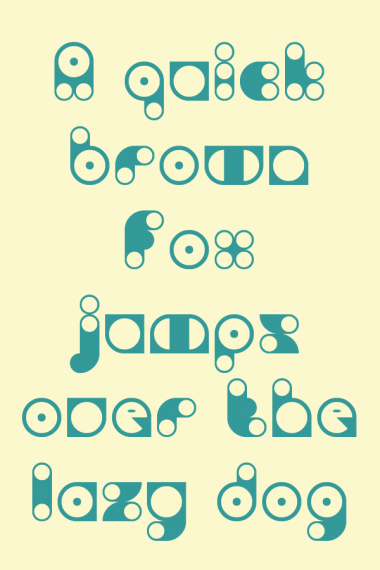
An experiment working with an x-height of one brick.
Precious!
Cute :)
Clever!
Very cool! Have you considered making the smaller rings a little bit thicker, so they match the larger ones? I love the e and 3. 10/10
Very imaginative! I agree the smaller rings could look better thicker.